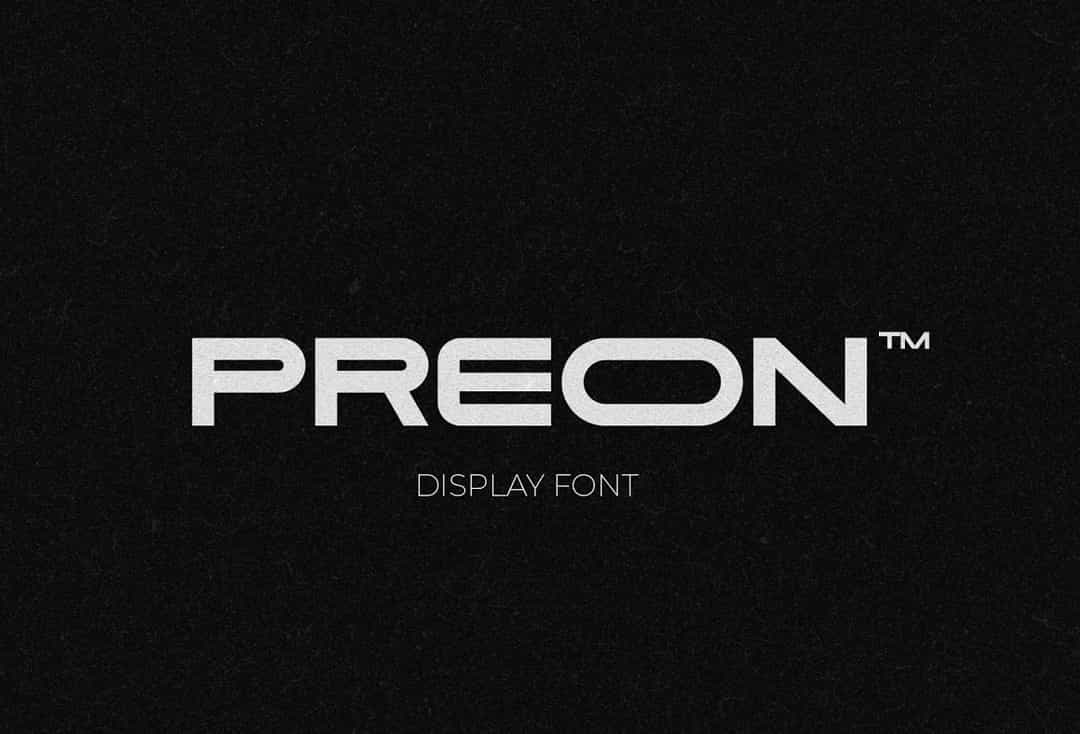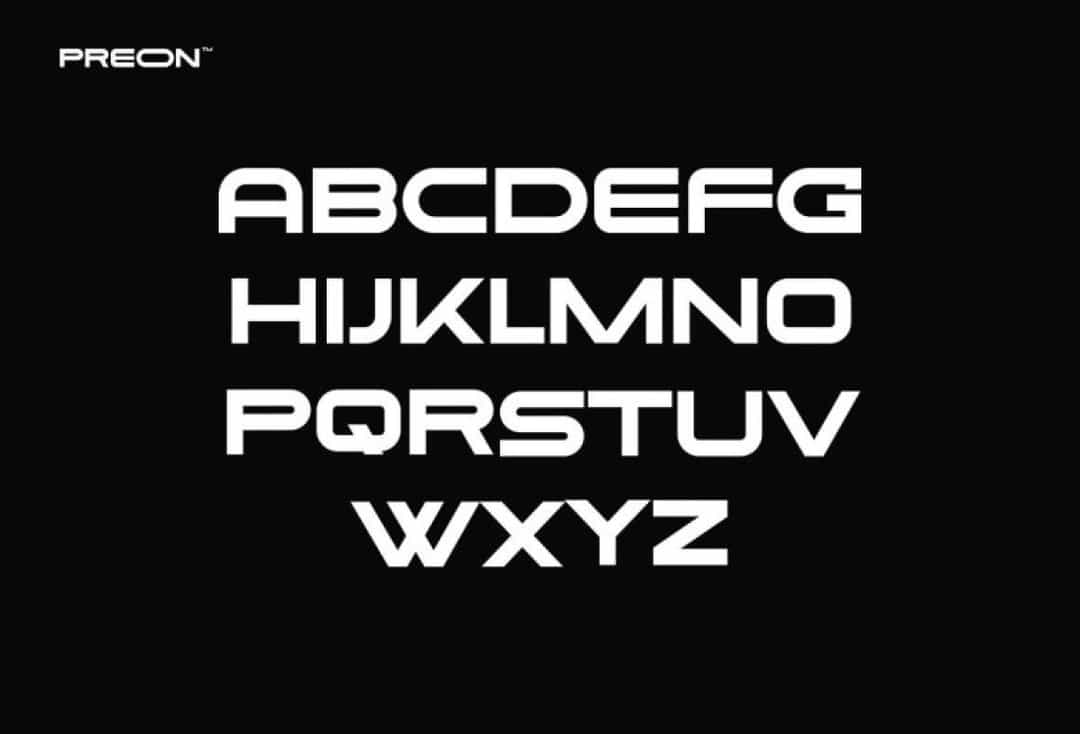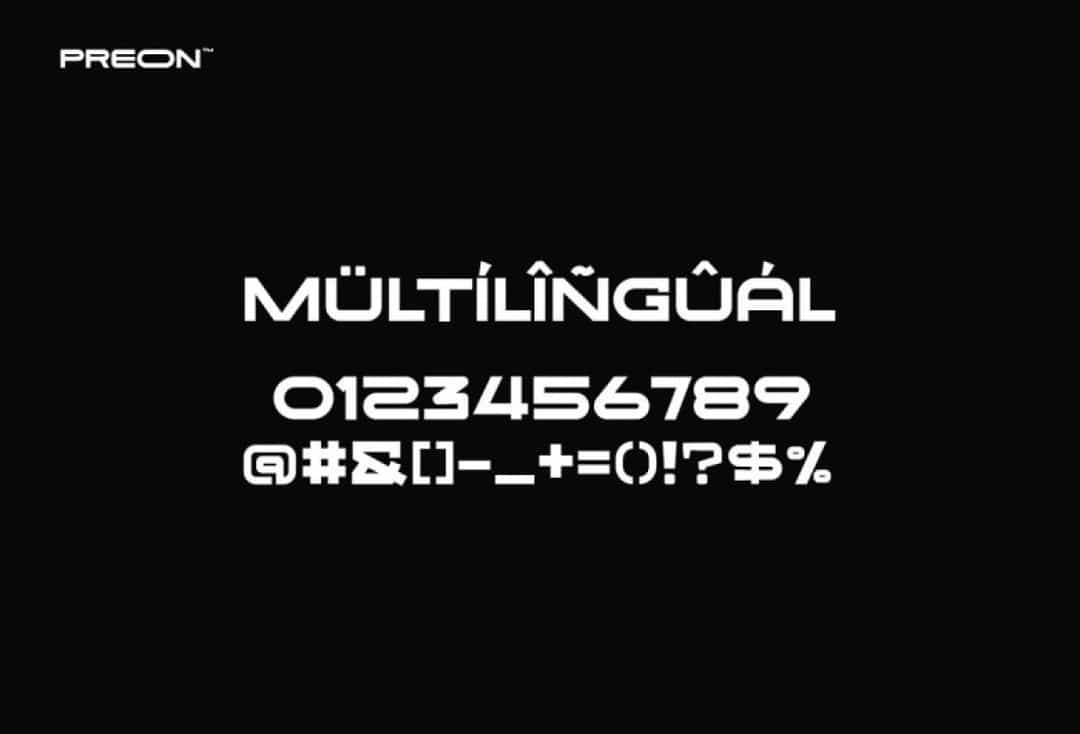
Discover Preon Font, part of the Sans Serif Display Basic collection—a versatile and unique font perfect for adding a personal touch to your projects. Download it for free and enjoy crafting designs with style, from invitations to social media posts. This font is available exclusively for personal use, giving you the freedom to create without limits. Unlock your creativity with Preon Font today!
Preon Font is a stylish sans serif display font designed to bring life and vibrancy into any design project. Use it on flyers, posters and T-shirts alike – the possibilities are endless!